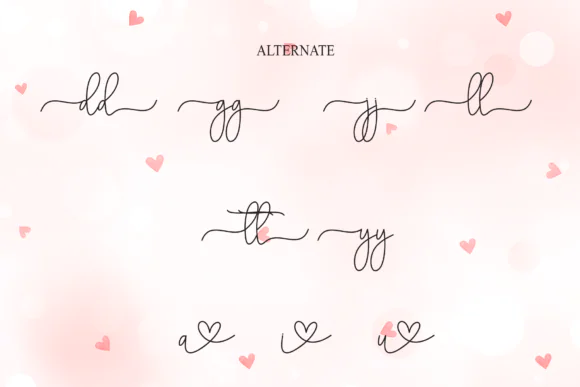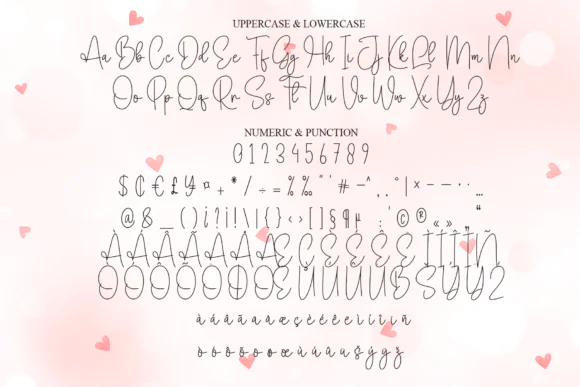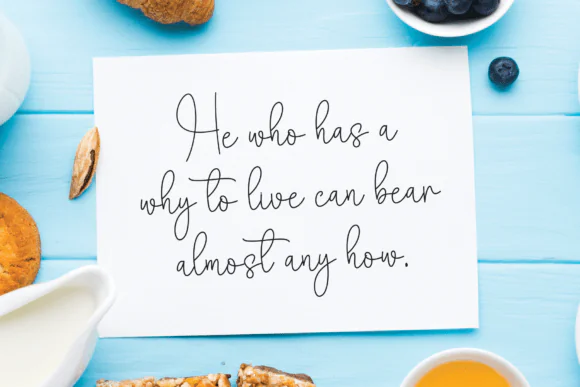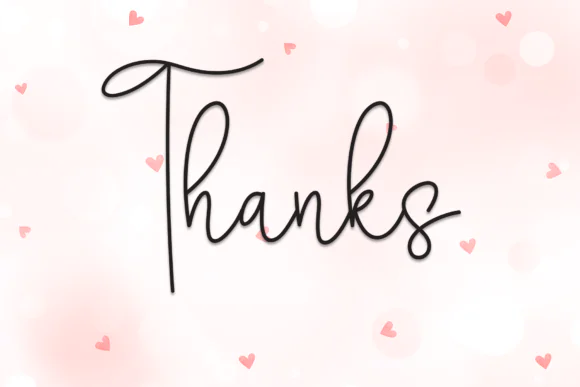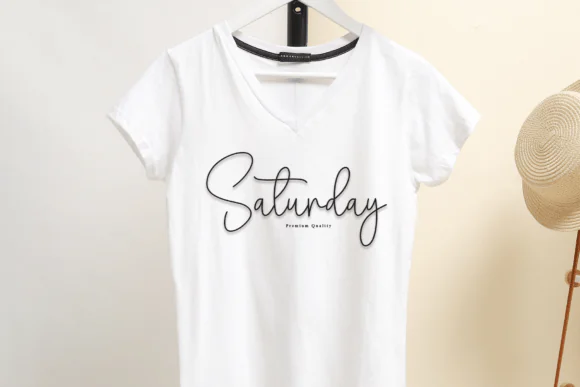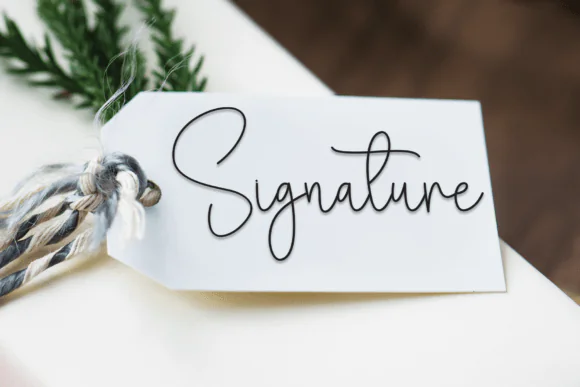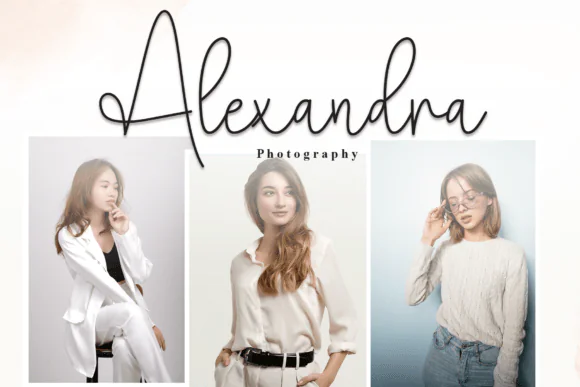
You Heart Font | Elegant Flowing Script Typeface for Wedding Invitations, Signature Logos, Branding, Social Media Posts, Love Quotes & Romantic Designs
Create graceful, romantic, and beautifully polished designs with You Heart Font, a flowing script typeface inspired by modern calligraphy. With its sweeping curves, delicate strokes, and elegant handwritten movement, this font is perfect for designs that need a soft, stylish, and heartfelt appearance.
You Heart Font works beautifully for wedding invitations, signature-style logos, elegant branding, social media graphics, romantic quote designs, greeting cards, stationery, product packaging, stickers, labels, boutique business designs, Valentine’s Day artwork, and personalized gifts. Its smooth calligraphy style helps your text feel refined, emotional, and naturally expressive.
Whether you are designing a wedding stationery set, a luxury logo, a romantic Instagram post, a love quote printable, or a feminine brand identity, You Heart Font adds charm, elegance, and a personal handwritten touch to your creative work.
• Wedding invitations
• Signature-style logos
• Elegant branding
• Social media posts
• Romantic quote designs
• Greeting cards
• Love letters
• Valentine’s Day designs
• Product packaging
• Stickers and labels
• Boutique business branding
• Stationery designs
• Printable wall art
• Personalized gifts
• Feminine design projects